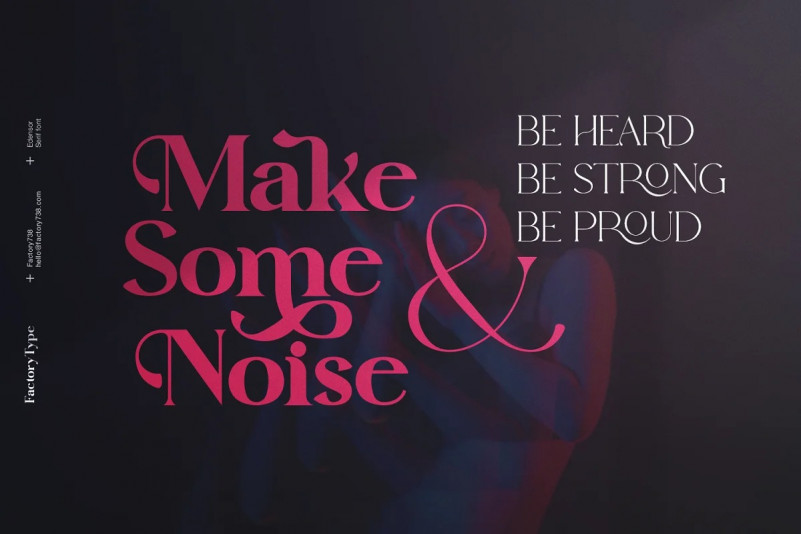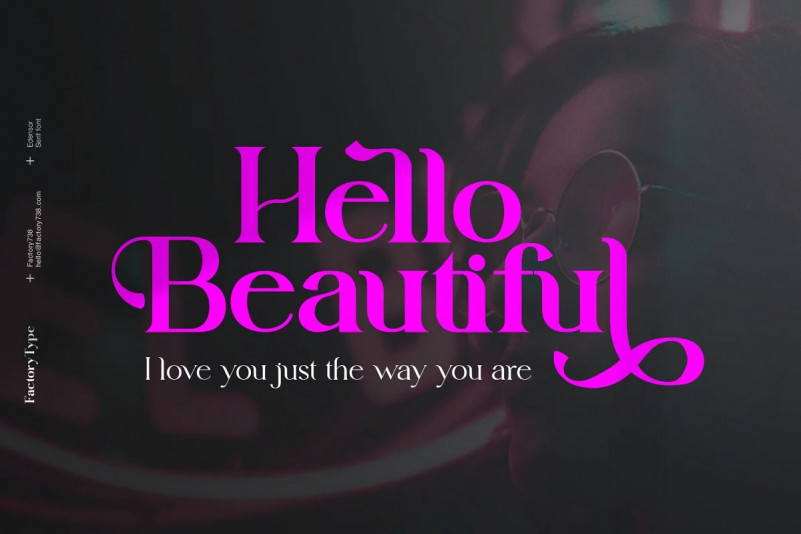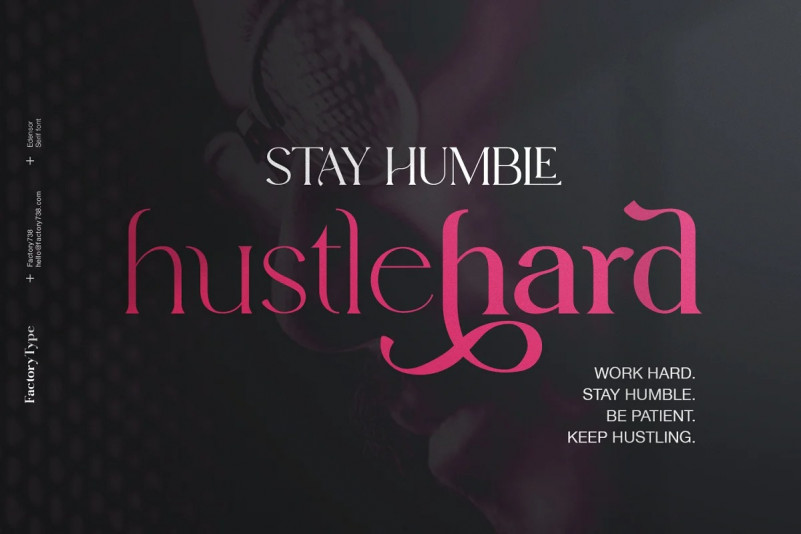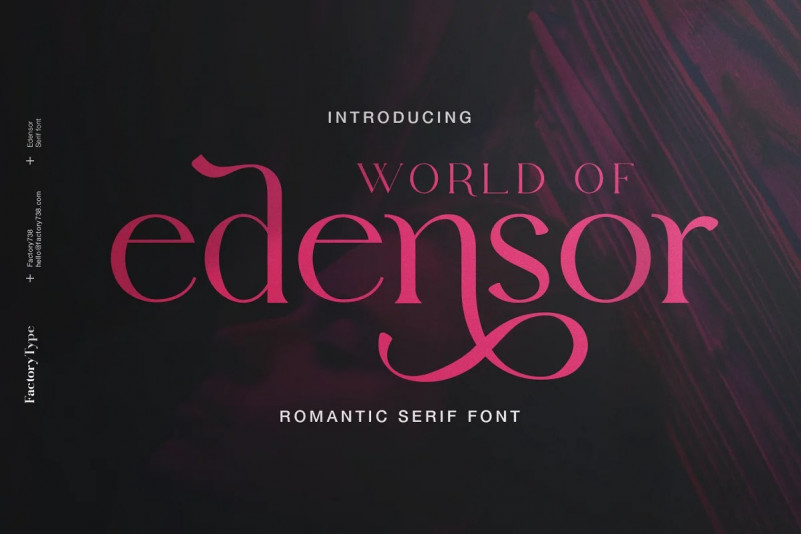
Edensor Font
Edensor Serif Font
It’s a very cool and unique modern serif font manufactured by Factory738. It teases your eyes with its curves yet still able to maintain its classy composure. The variety of weights provide a range of choices that will help you find the best typographic colour. The available stylistic Ligature and Alternate offer a perfect font for anything your creativity takes you.